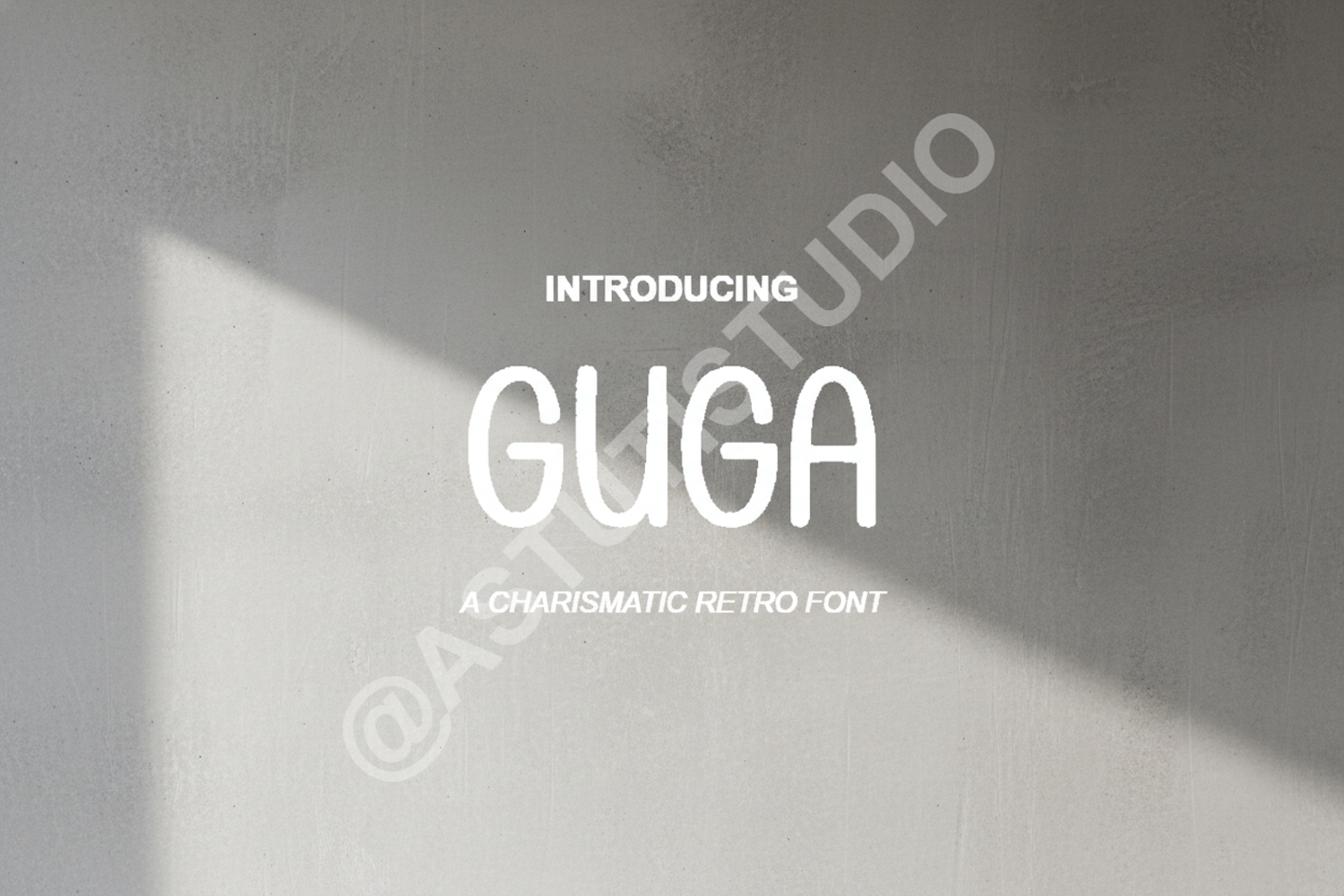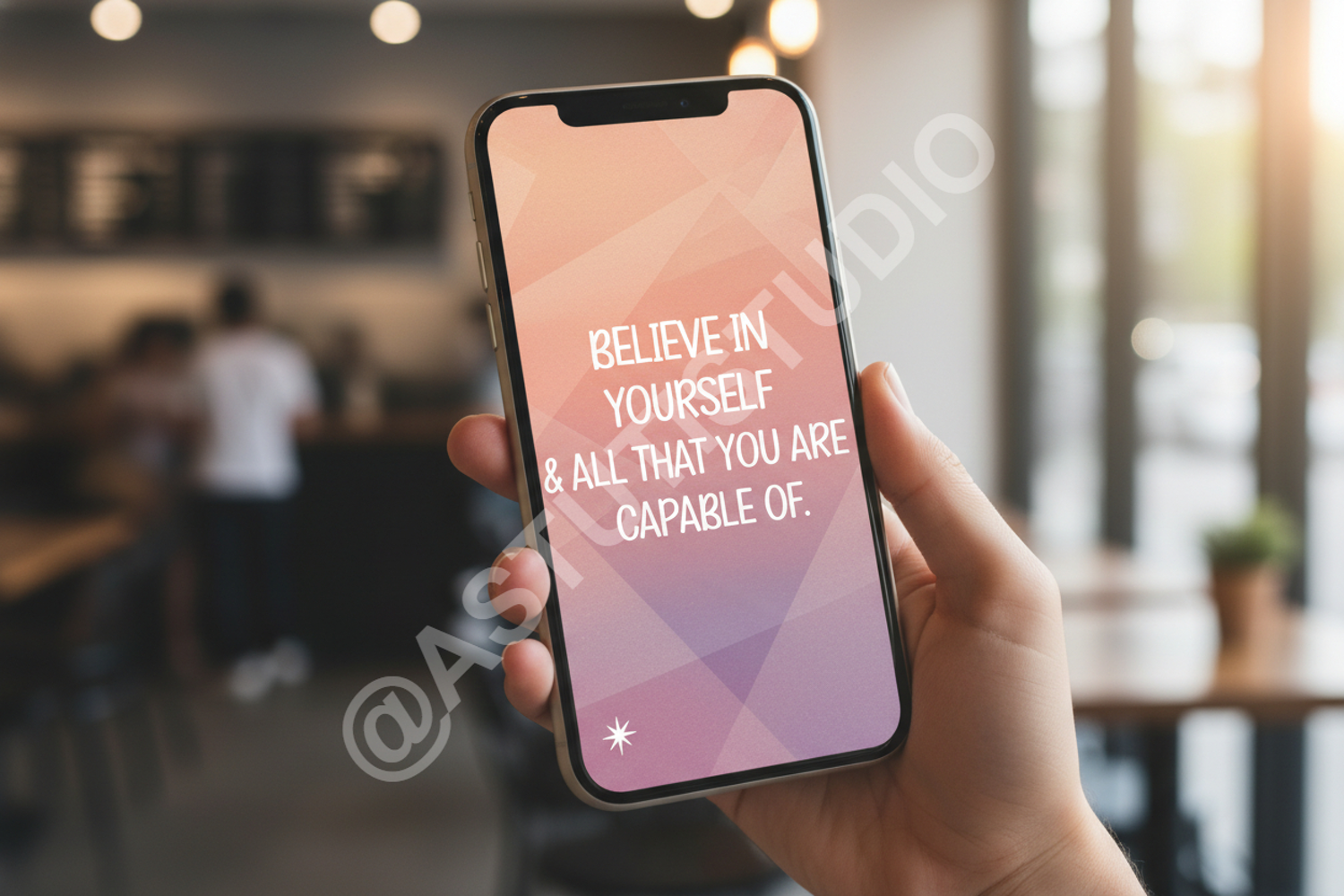
Guga - Sophisticated Modern Sans Serif
Guga
Elevate your creative projects with Guga, a premium sans serif typeface that strikes the perfect balance between modern aesthetics and timeless clarity. Meticulously crafted for designers who prioritize precision, Guga offers a clean and minimalist silhouette that adapts effortlessly to any design environment.
- Branding and Identity: Perfect for high-end logos and corporate stationery.
- Editorial Design: Ideal for magazines, lookbooks, and digital publications.
- Web and App Design: Optimized for maximum readability on screens.
- Social Media: Create professional graphics, quotes, and marketing assets.
- Product Packaging: Add a touch of elegance to labels and luxury boxes.